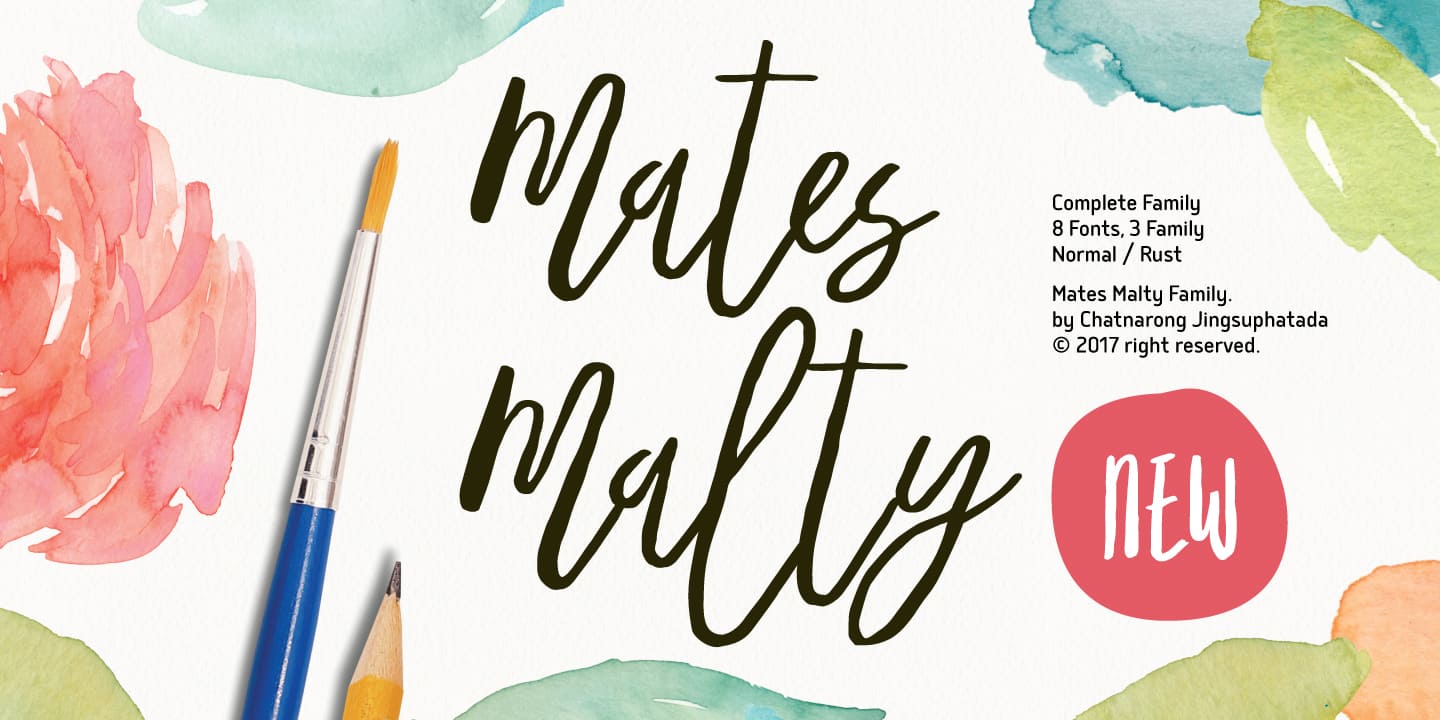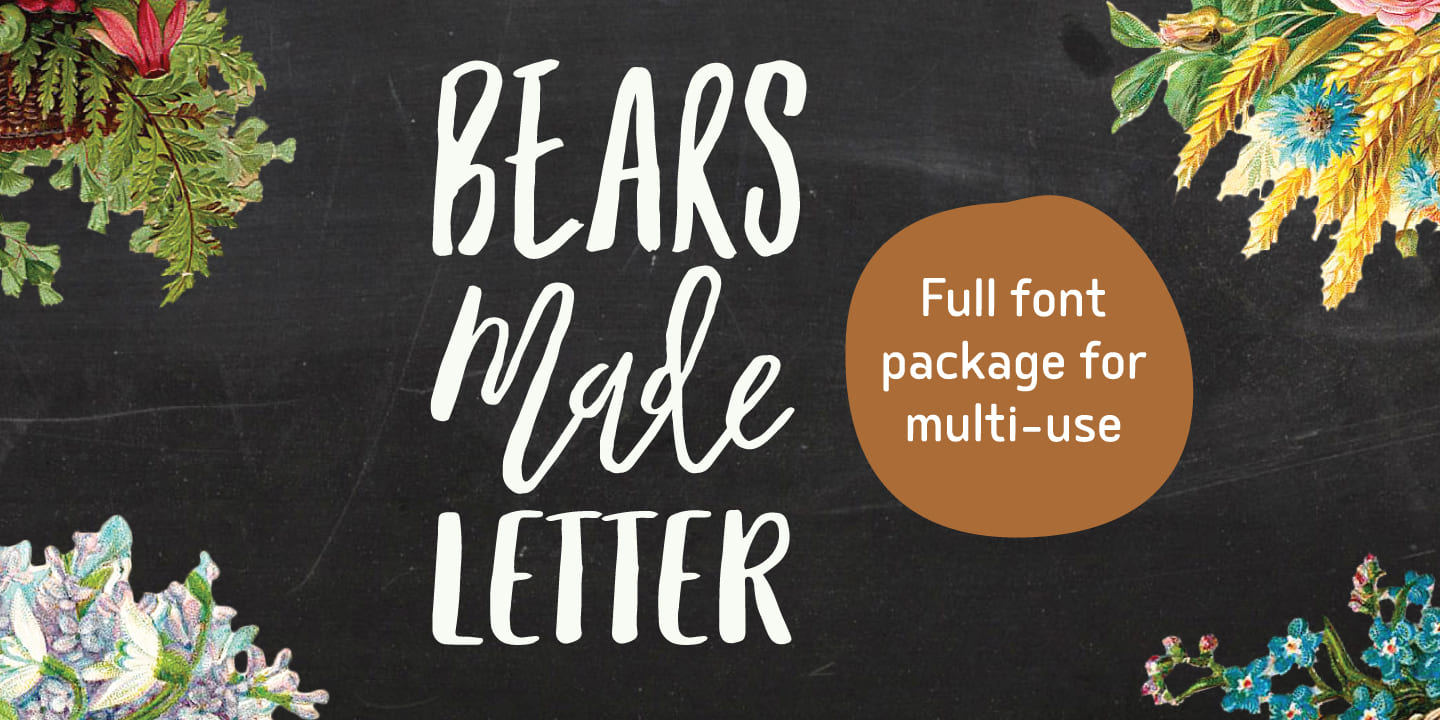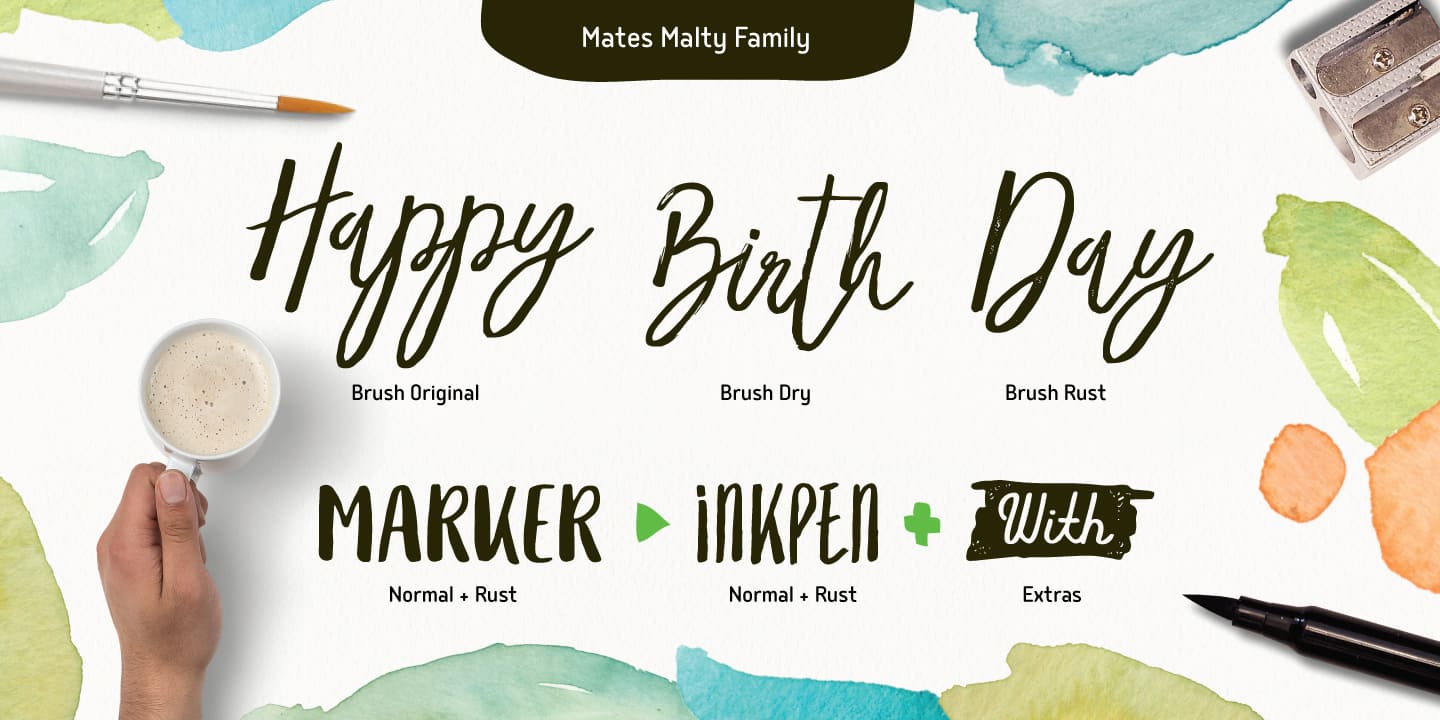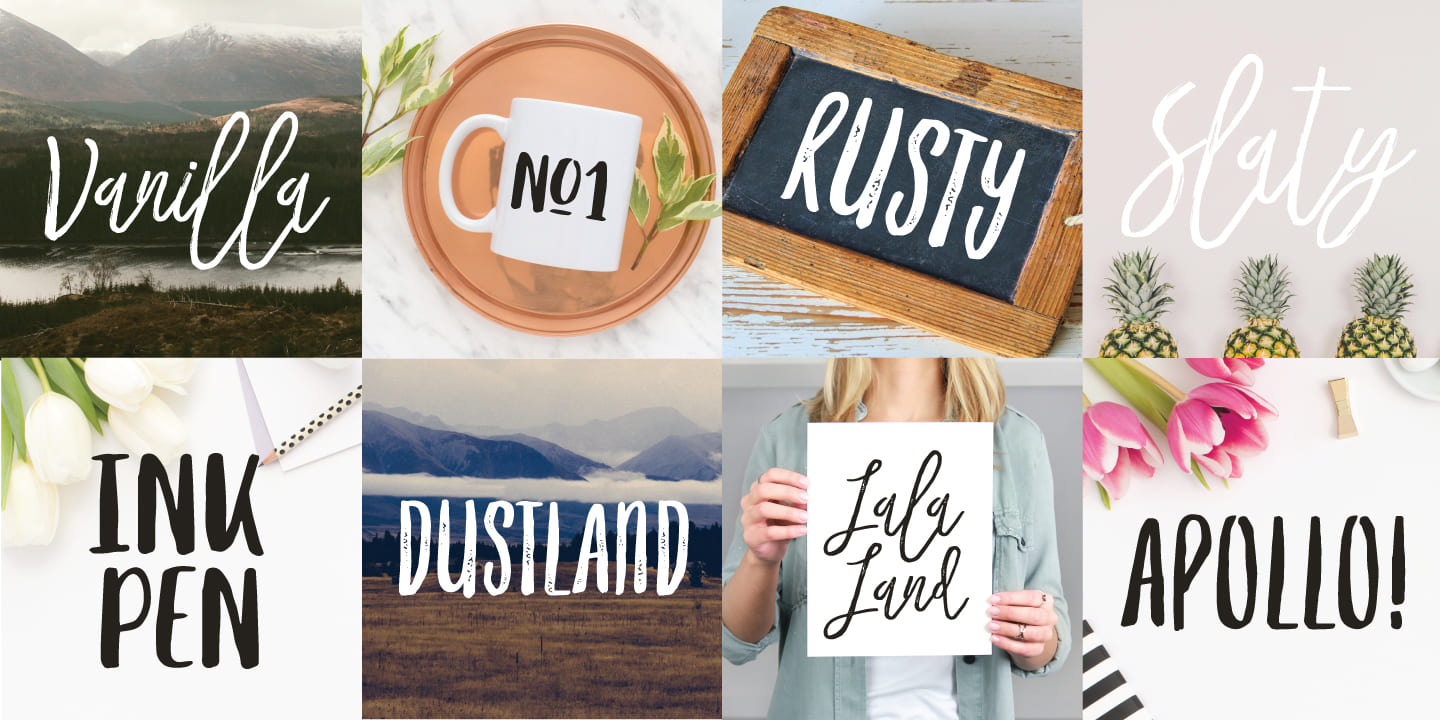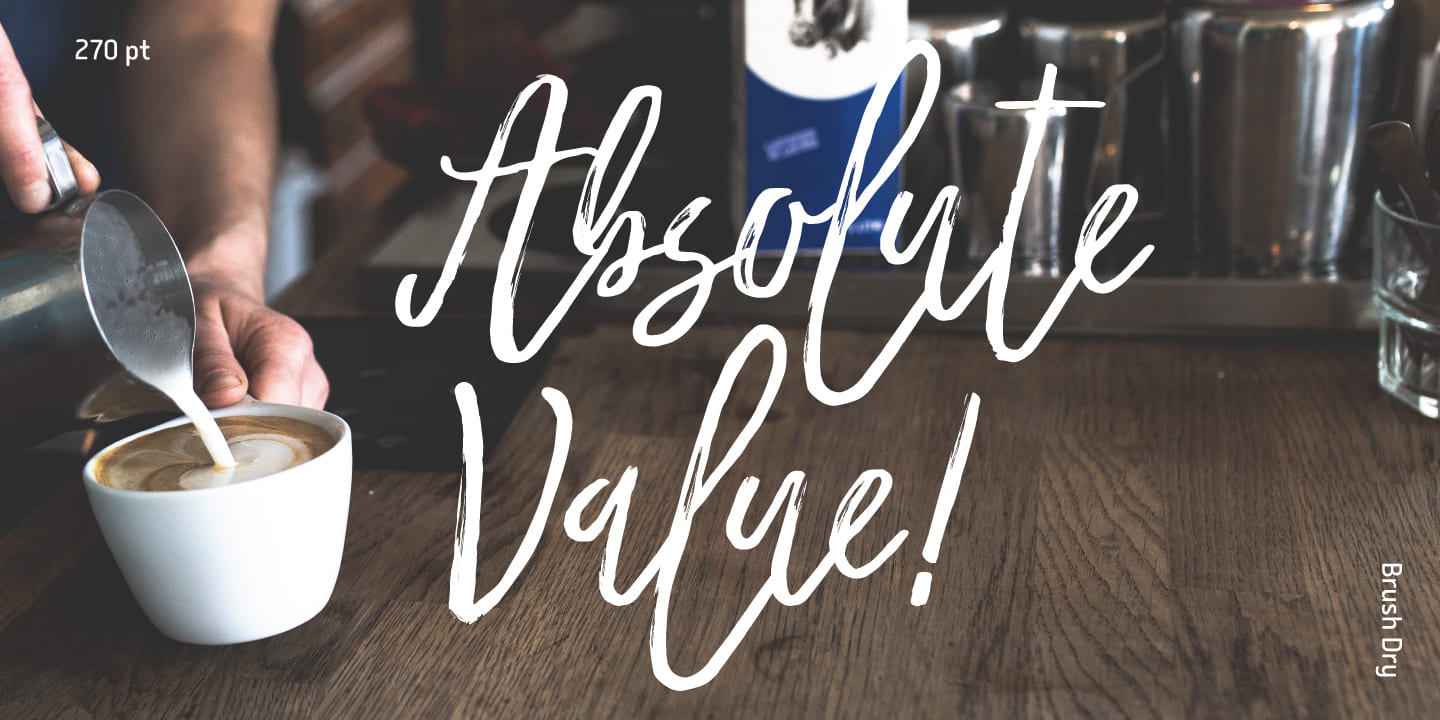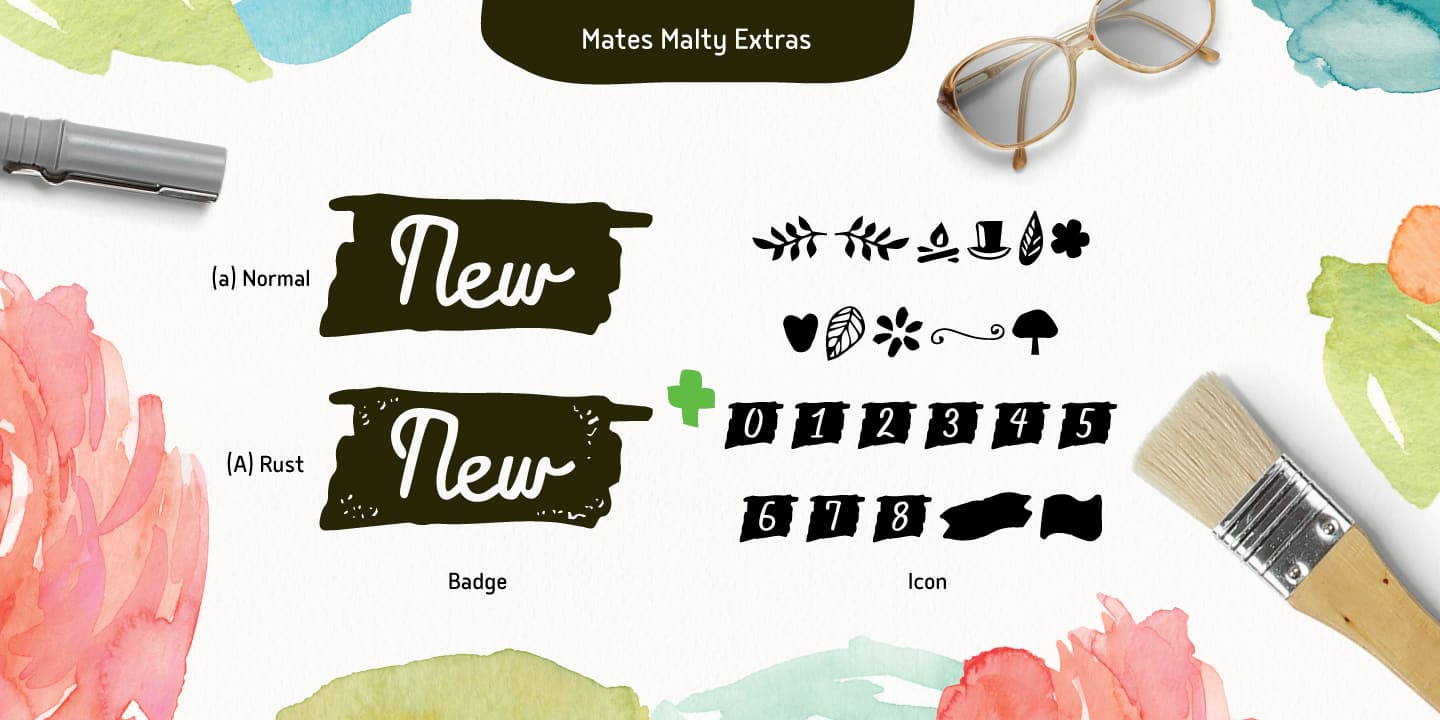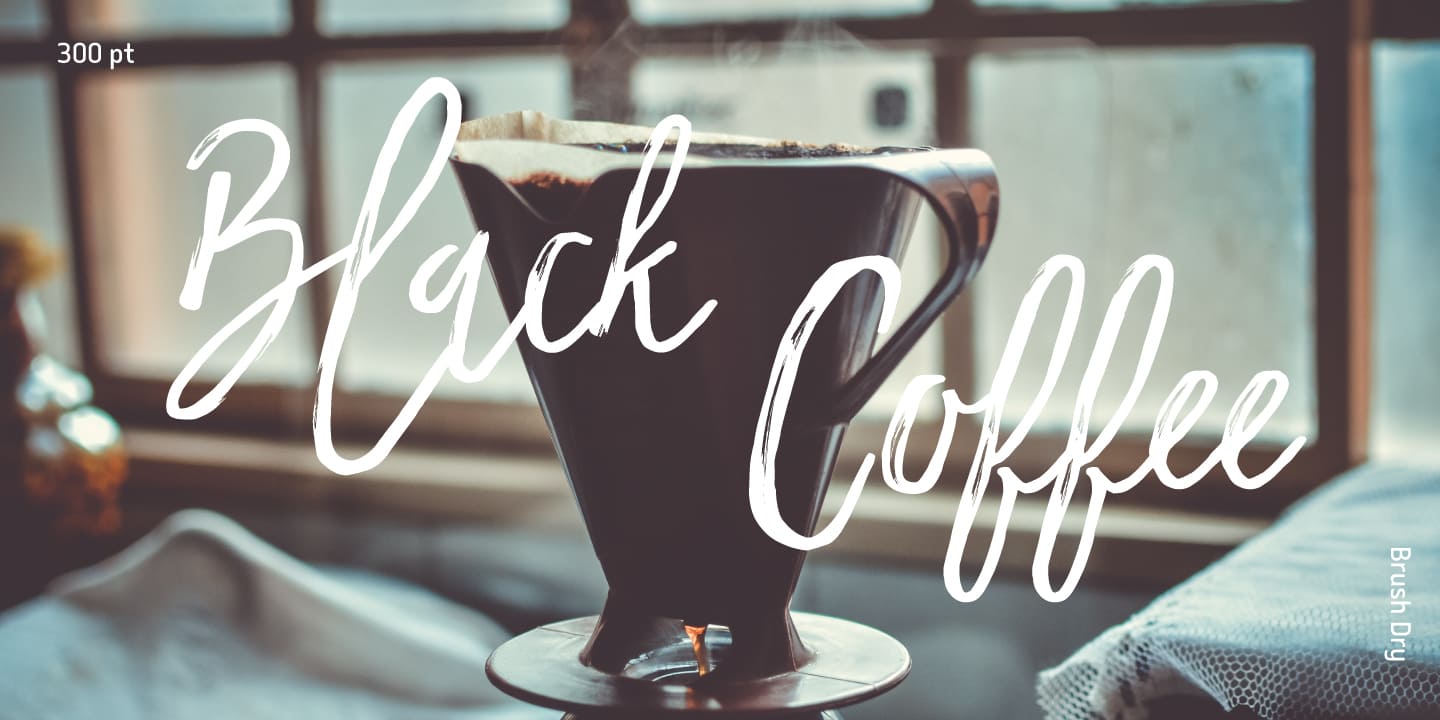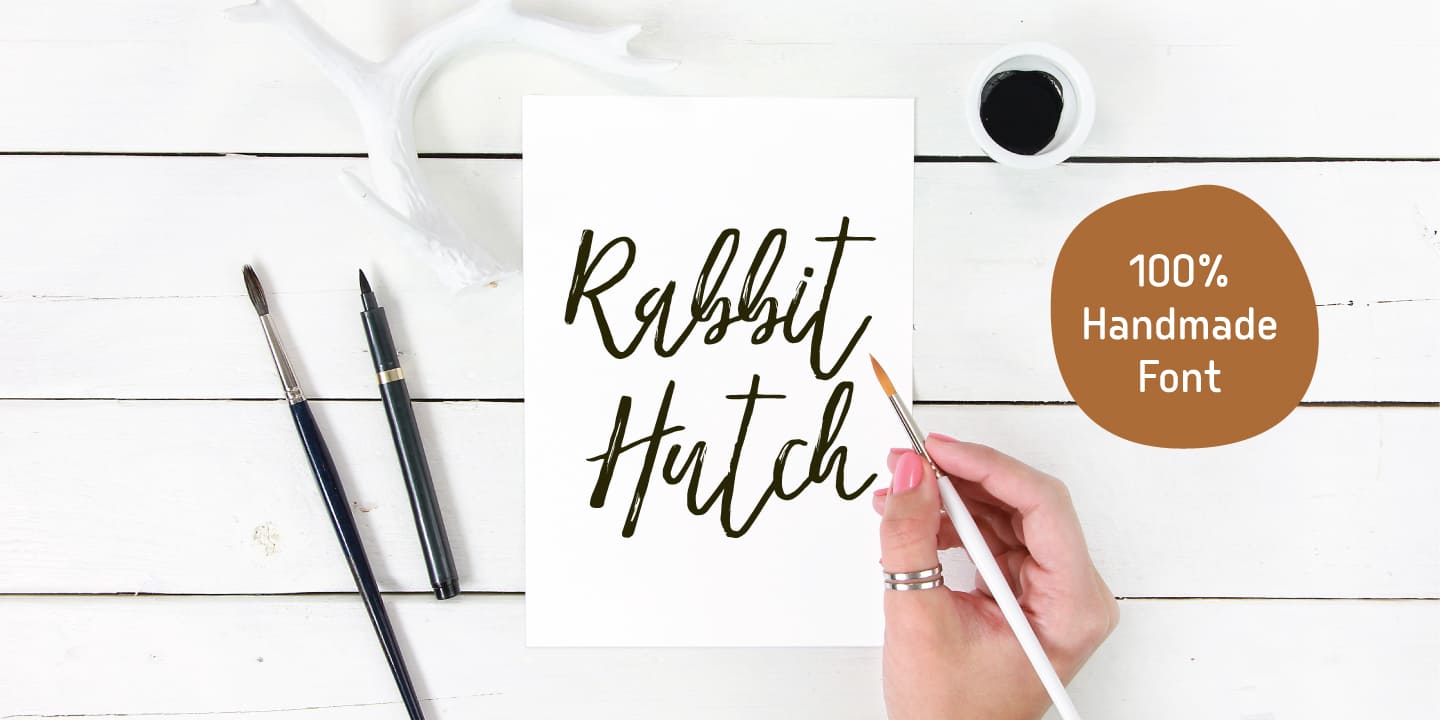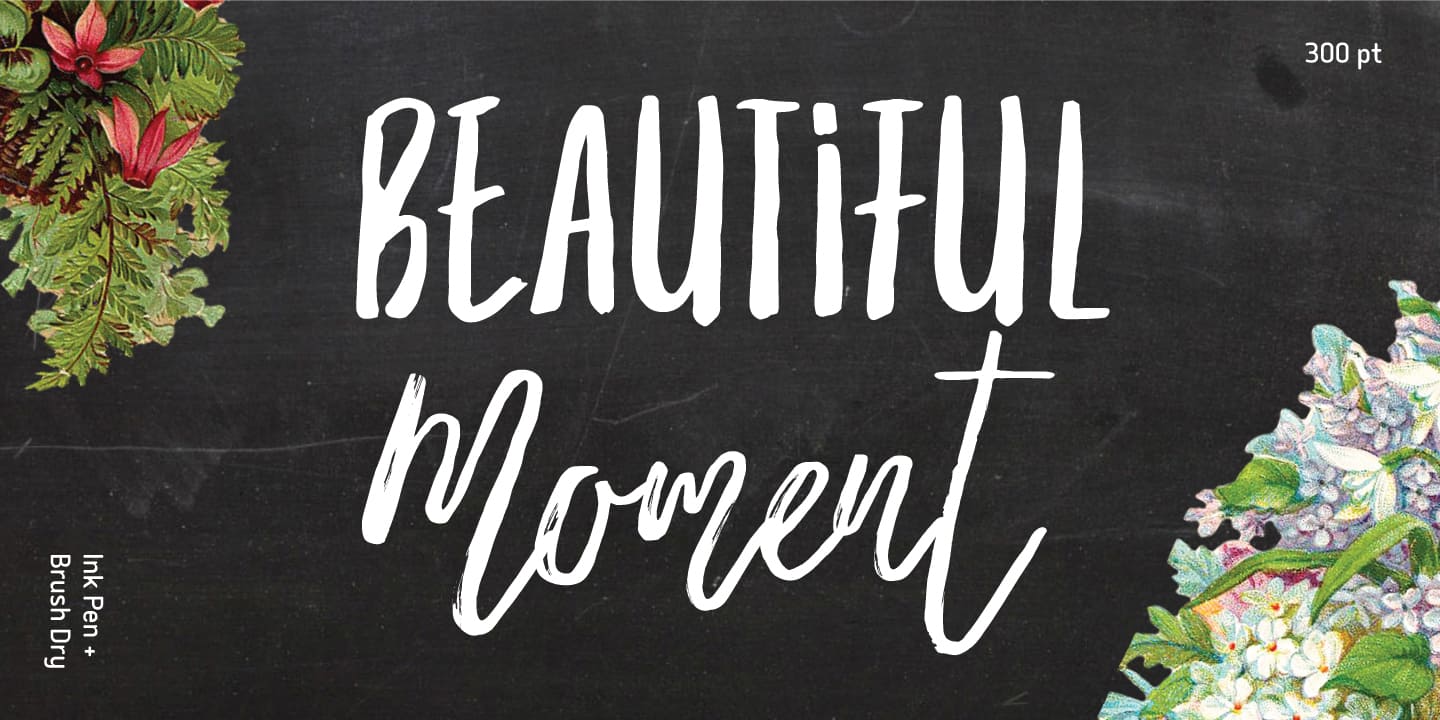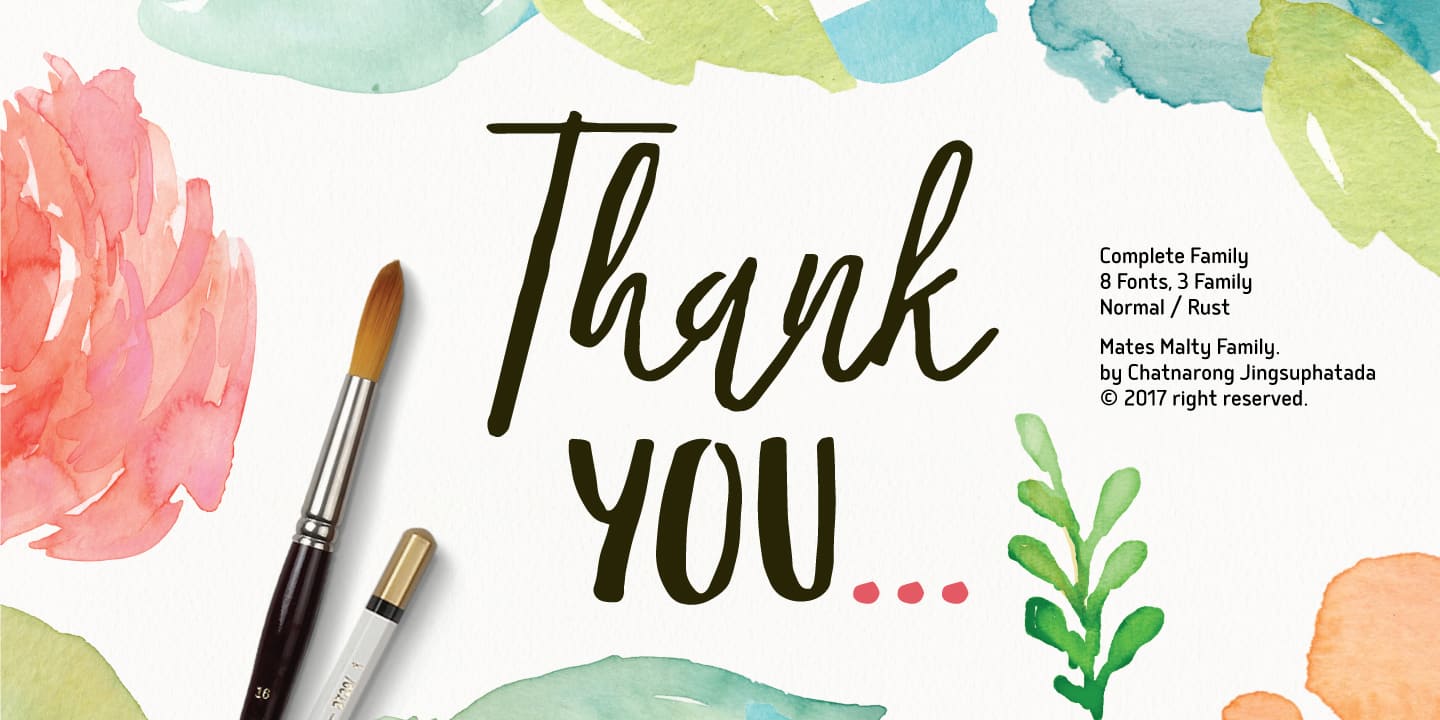
Mates Malty Family (8 fonts)
From Typesketchbook
We also keep incomplete details and uneven textures that resulted from the writing process. We provide various font styles to help you mix and mach them to suit your creative work harmoniously.
About Typesketchbook
Located in the capital city of Thailand, Chatnarong Jingsuphatada started his type design career while working as a graphic designer. Throughout his career, whenever he was unable to find exactly what he needed for his own design projects, he began to create new typefaces rather than settle for ones that didn’t quite fit.
He experimented with different designs for 2 years before launching his Superstore Font Foundry, and then in 2012, began selling his typefaces commercially. Chatnarong made his debut with Gusto, a font that explores the intersection of san serif and humanist styles. Finding a strength in his ability to combine different styles of fonts into one, he went on to create Quan, which consists of a very usable, clean and modern sans typeface and a more rounded sub-family.
The Bangkok-based designer says, “Having worked as a graphic designer, I have gained insight into what designers want and need and what they look for in regard to how usable and interesting a font is. I try to create fonts that are multi-functional and attractive to suit today’s diverse fields of design. I draw inspiration from the creation and integration of different sets of fonts. This method offers me endless possibilities to design original typefaces that boast versatility and creativity.”